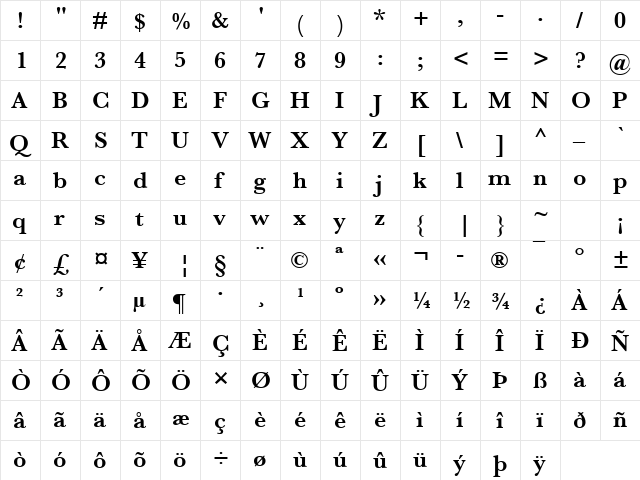
Baskerville SemiBold
Design Context for Baskerville Typeface
Baskerville takes a measured approach to typography — its balanced proportions and neutral character make it a reliable workhorse for both digital and print work. Its bold stroke weight gives it real presence on the page.